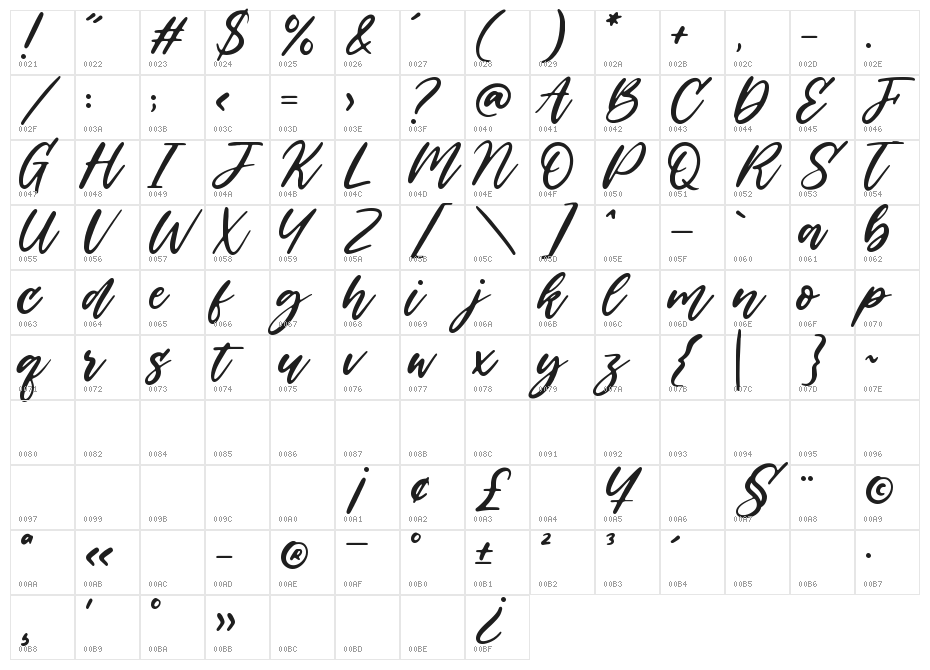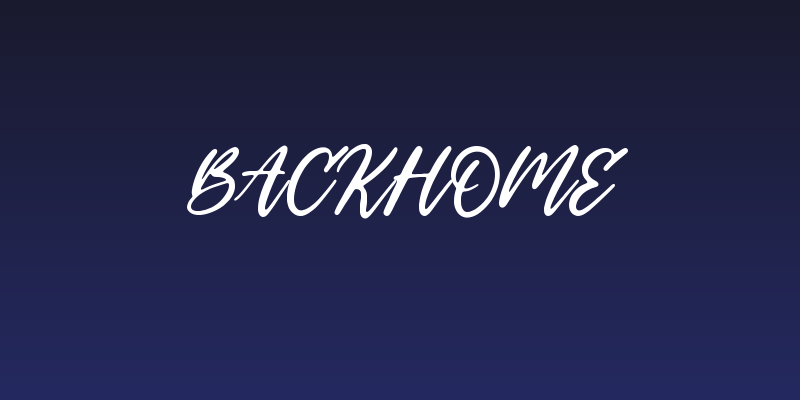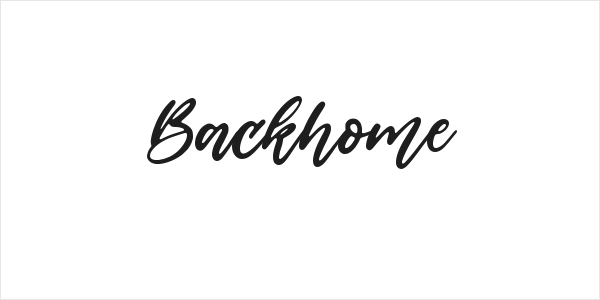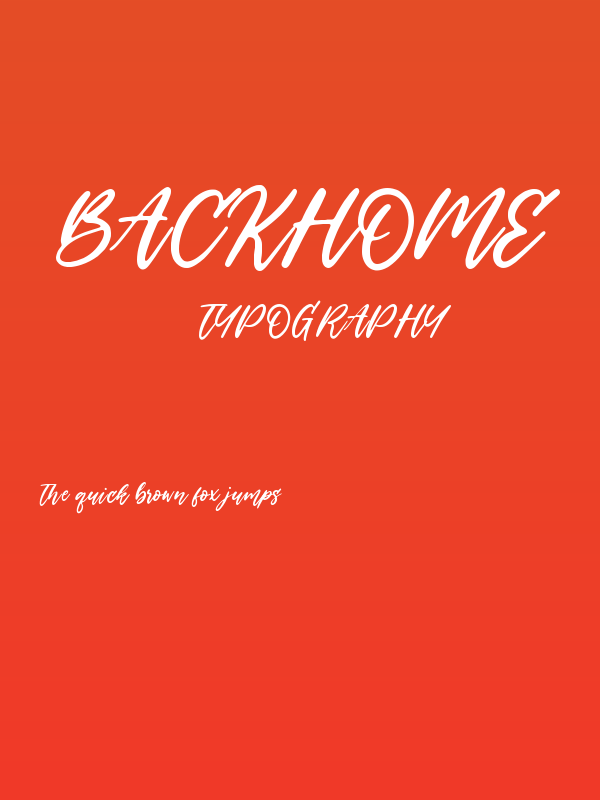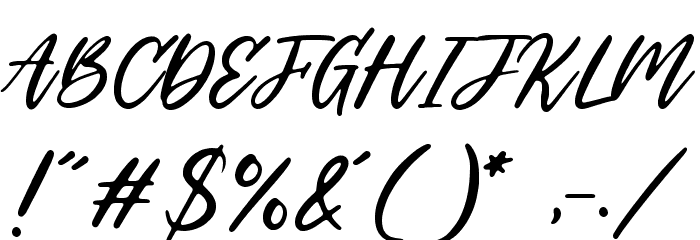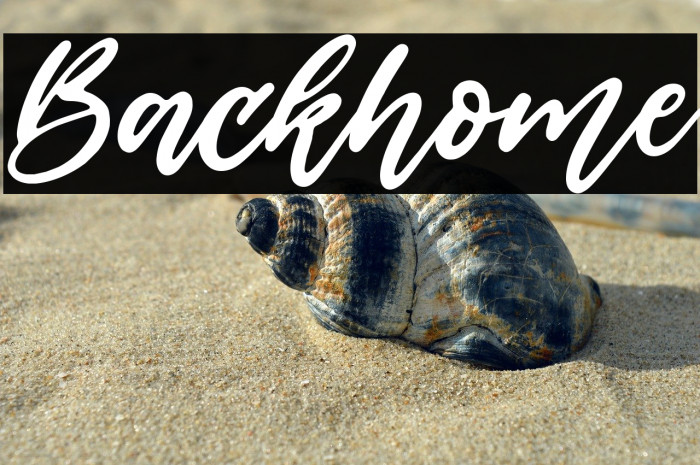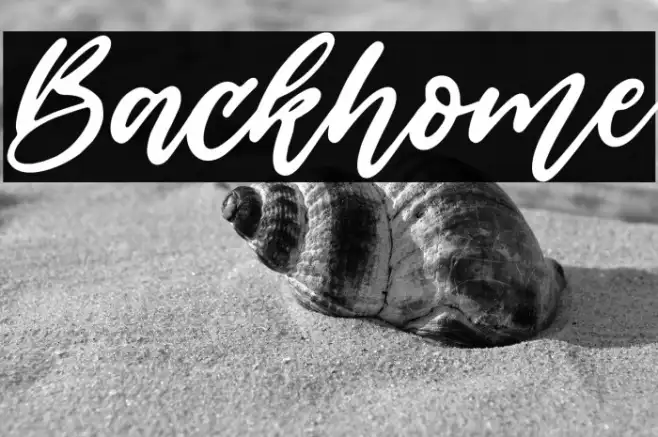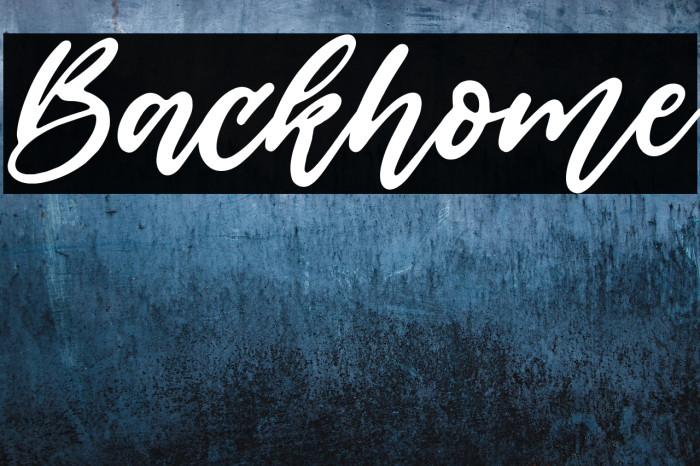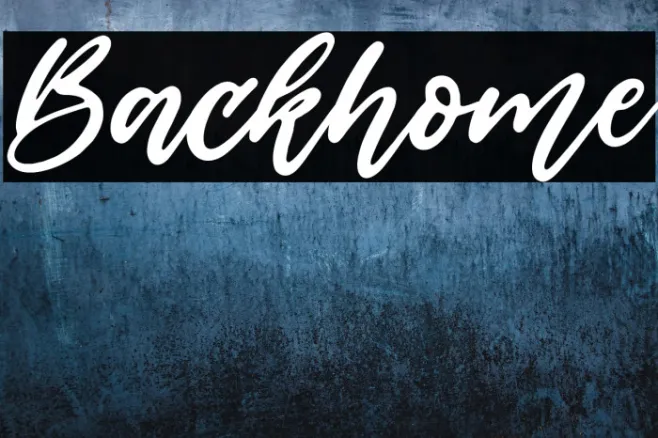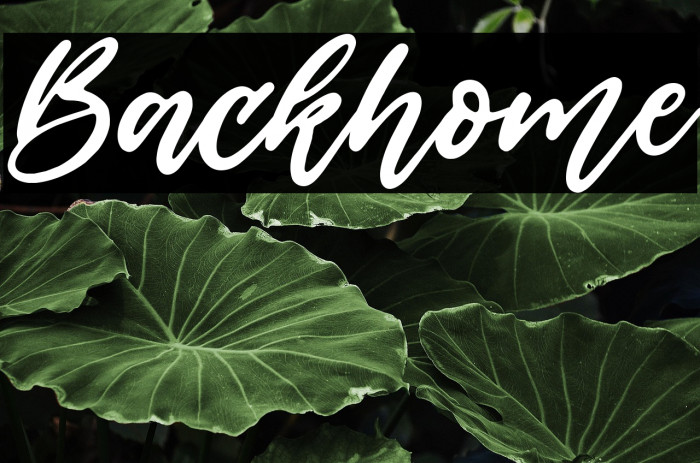
Backhome Font
Backhome Description
This font features a dynamic and flowing script style, characterized by its elegant and cursive letterforms. The uppercase letters exhibit a graceful slant, with smooth, continuous strokes that connect seamlessly, creating a sense of fluidity and movement. The lowercase letters maintain this fluidity, with rounded forms and consistent stroke widths that enhance readability. The numerals and special characters are designed to complement the alphabet, maintaining the same cursive style. Overall, this font exudes a sense of sophistication and charm, making it ideal for projects that require a personal and artistic touch.